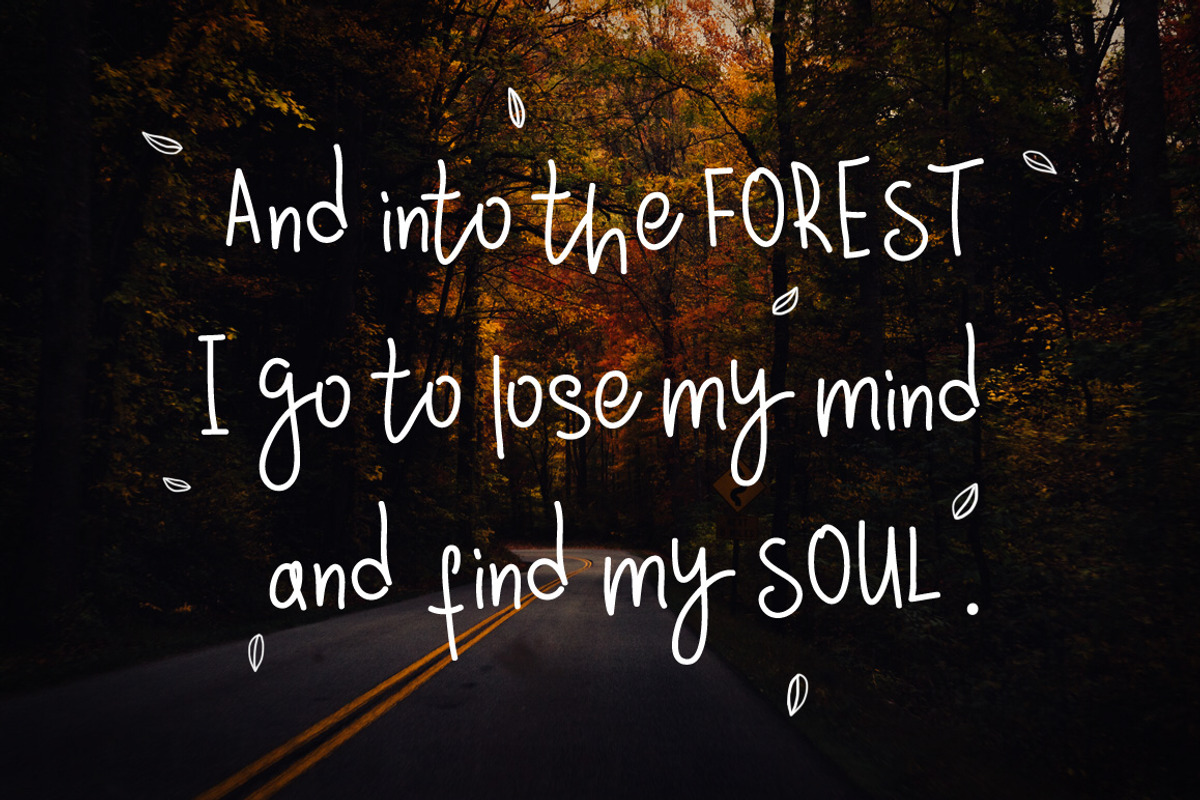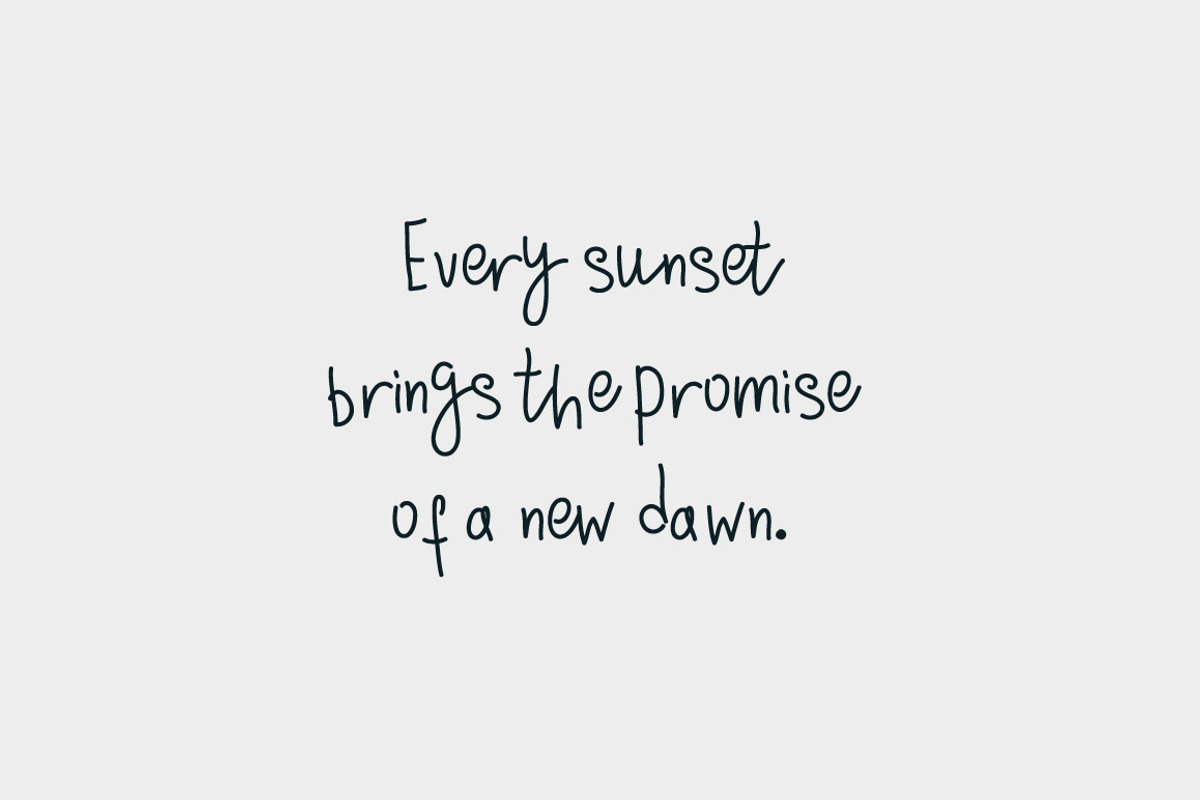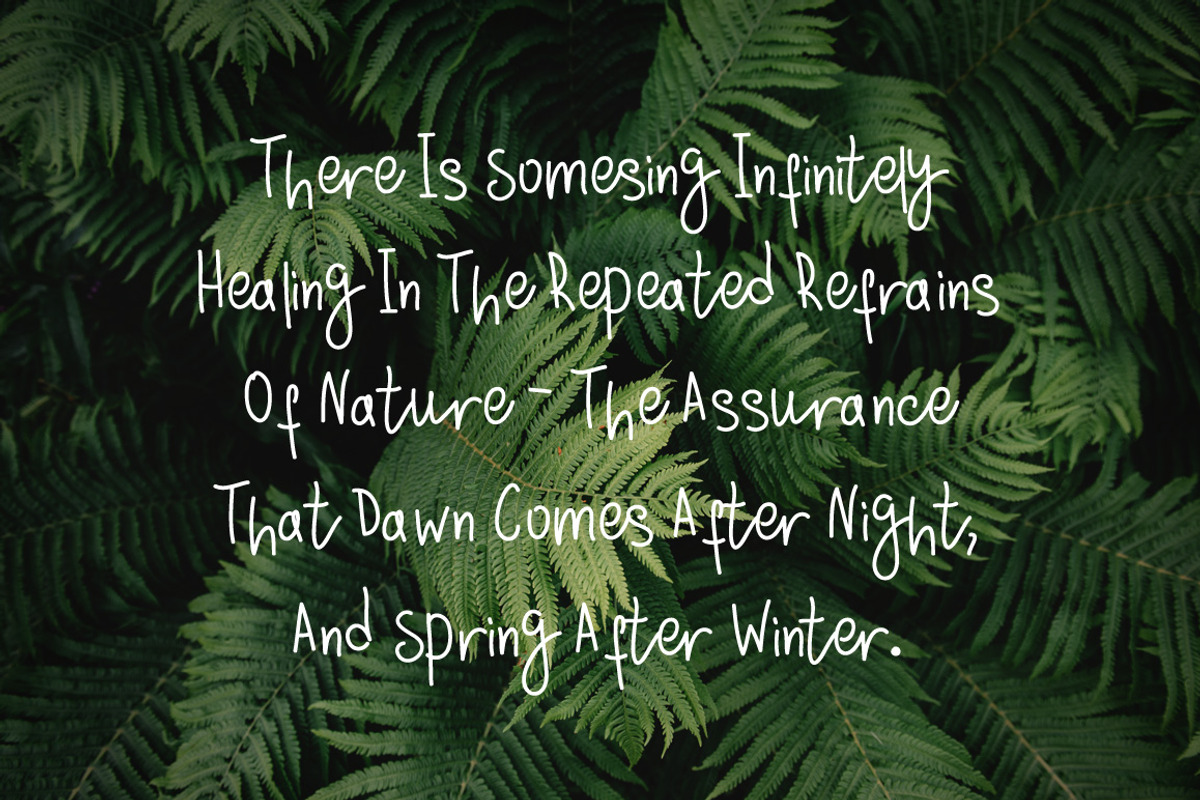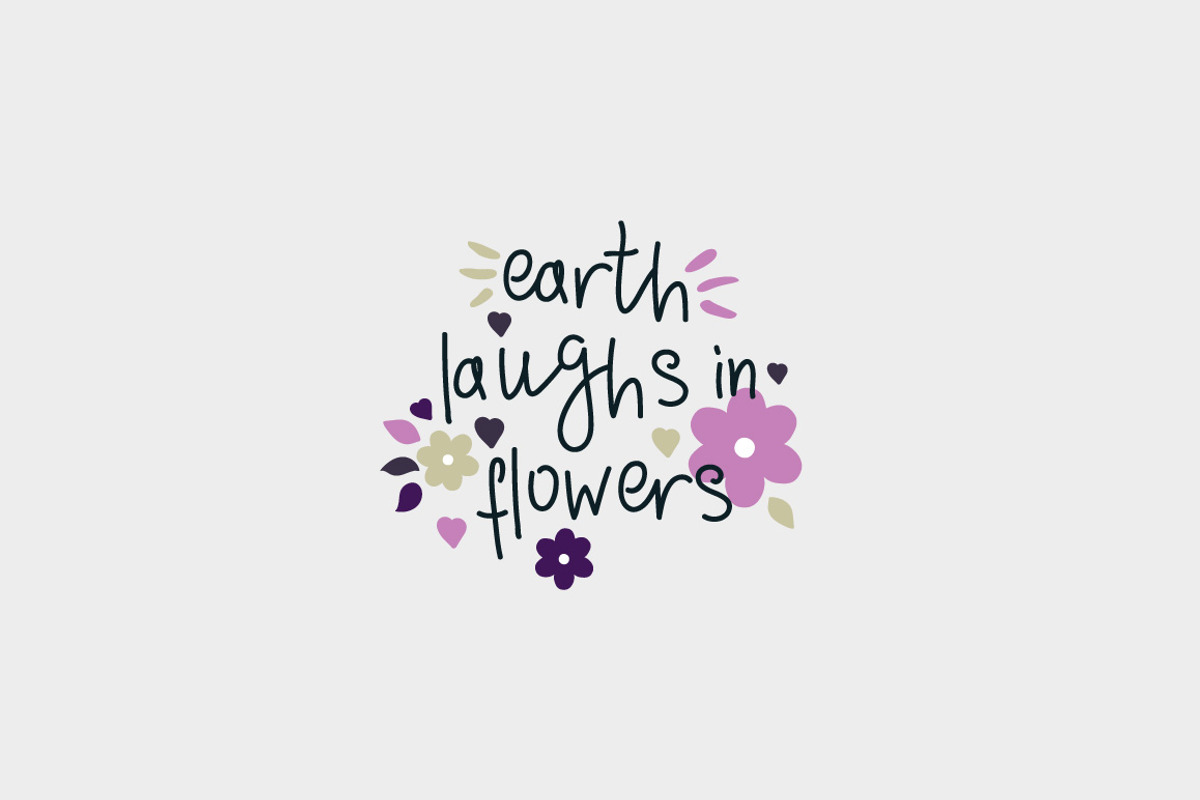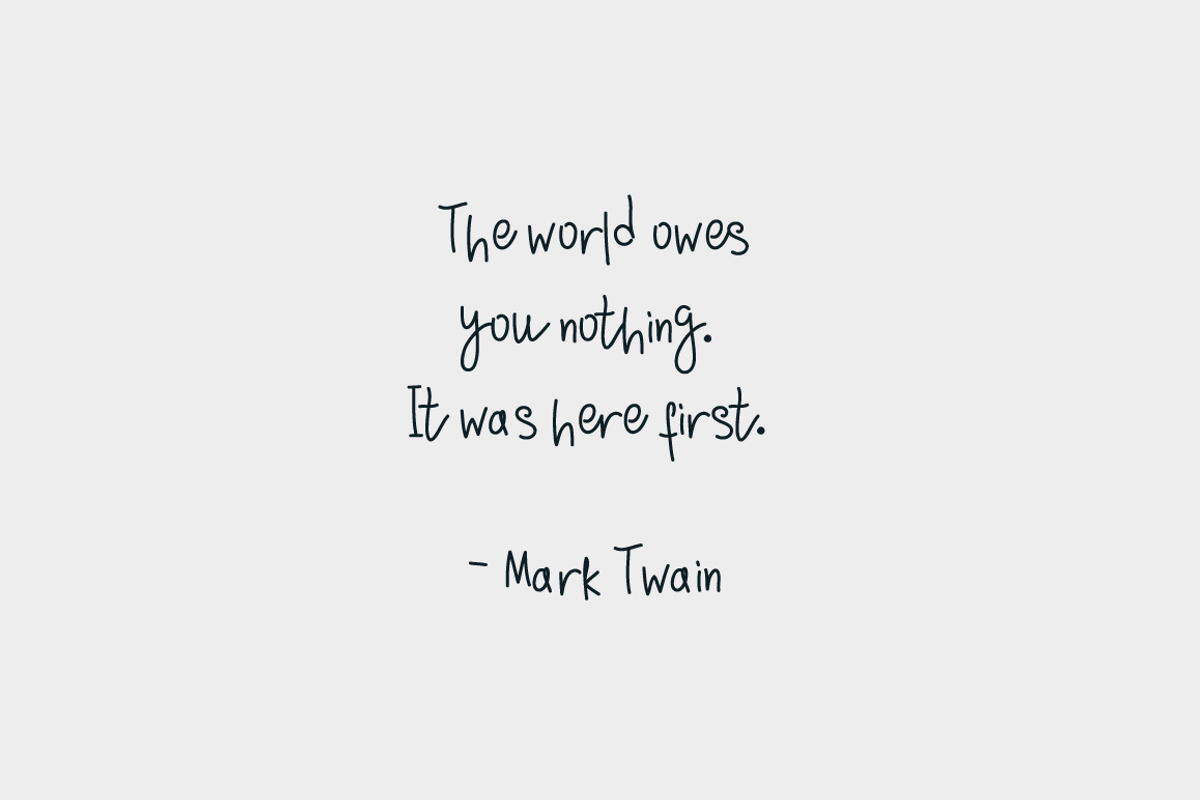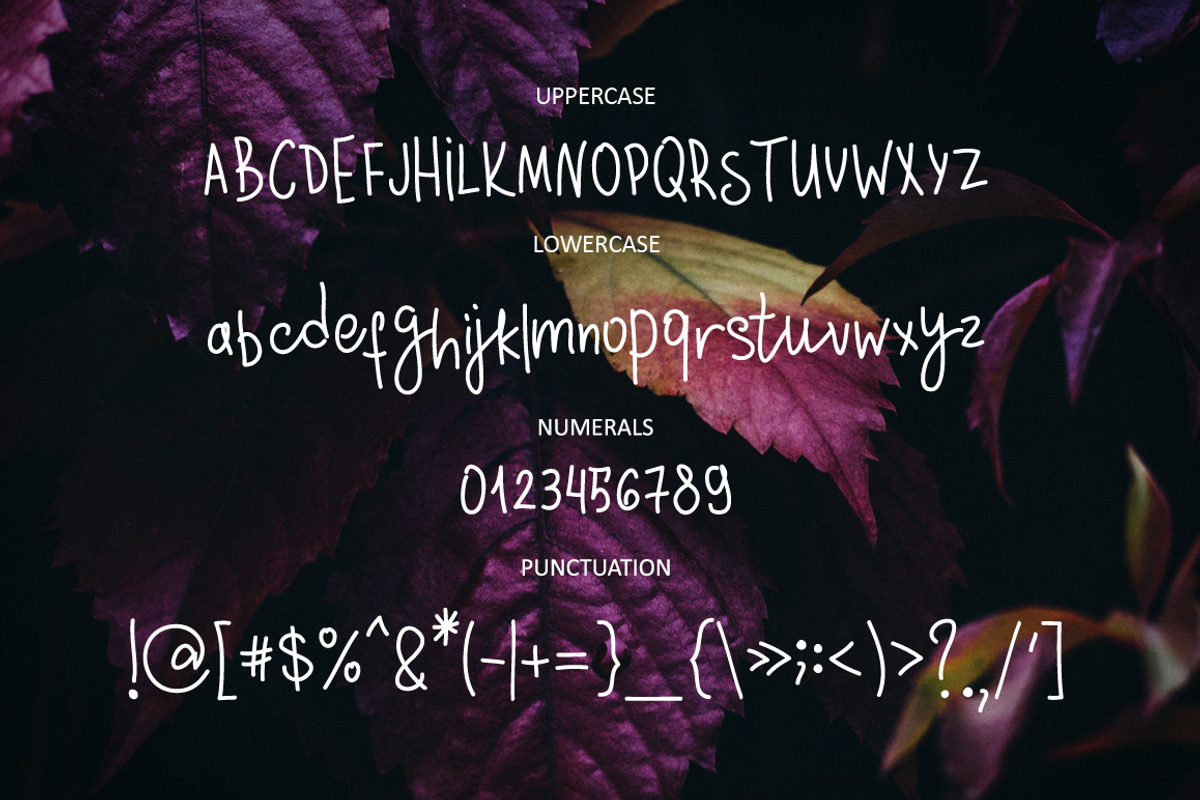
Sylvestre nature handwritten font
Sylvestre nature handwritten font by Wewhitelist is a font selected for branding, posters, packaging, typography.
Why Sylvestre nature handwritten font is worth a look
Sylvestre nature handwritten font by Wewhitelist fits naturally into Branding, posters, packaging, typography.